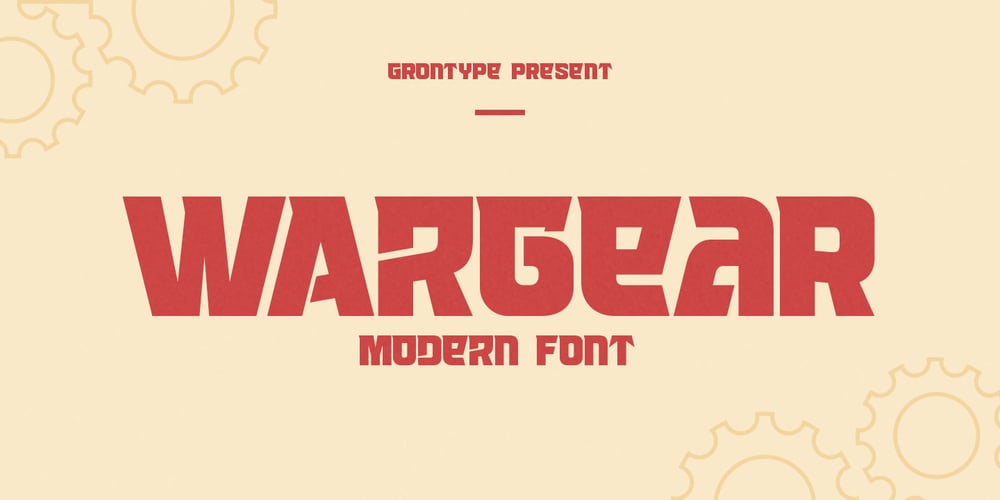
Wargear Font Family was designed by Jarnawi Saja and published by Grontype. Wargear contains 1 styles and family package options. Wargear is a black display type. Simple in a good way and tough look. This font designed with tight kerning making this font a perfect choice if you want a bold way in your design. The font is great to create a logo tagline, flyer header, or even magazine title. Features: All Standard Glyphs Multilingual Support Numbering & Punctuation Thankyou for Choosing this fontRegard, Grontype